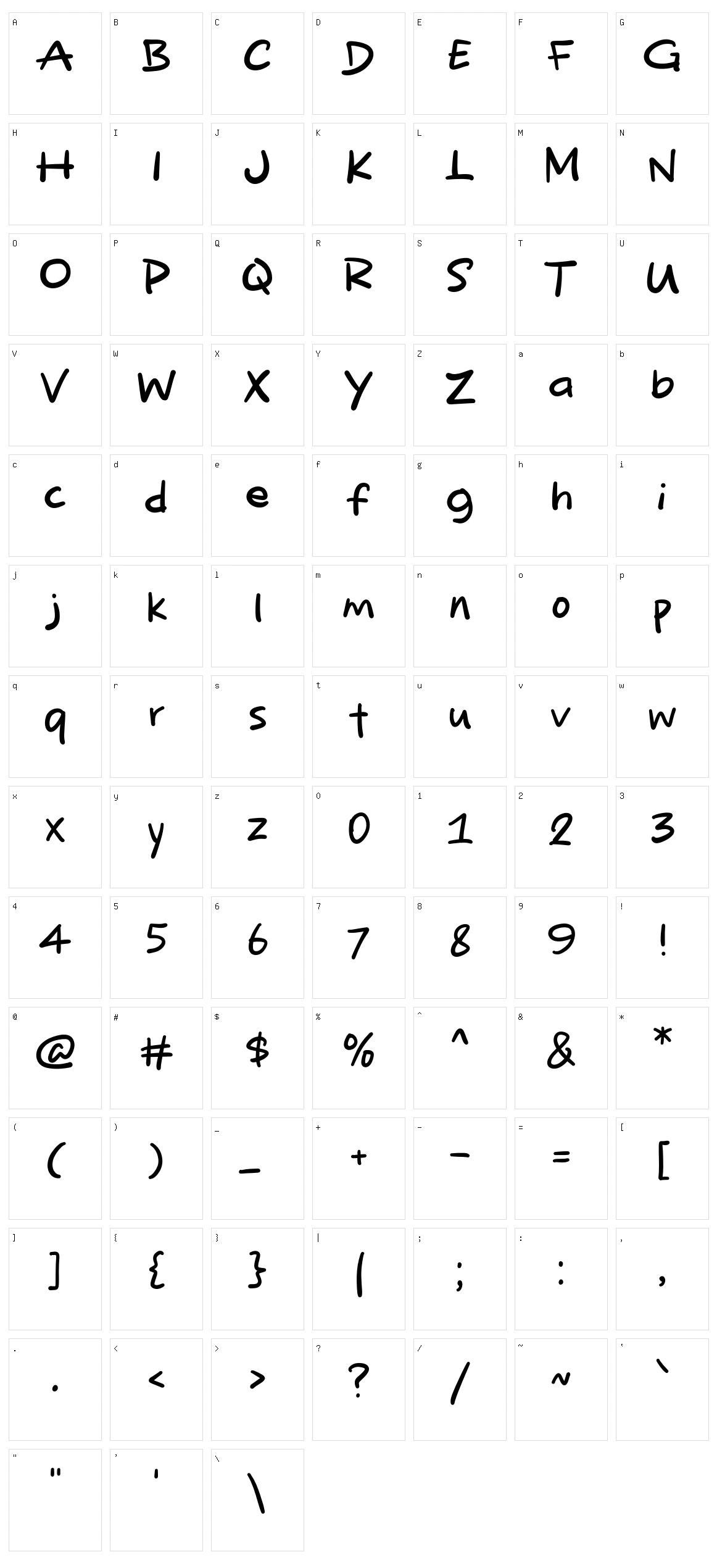
The free font December Show is carefully designed by Khurasan, showcasing a thoughtful balance of creativity and usability and falls under the Script font style. When you download the ZIP file, it contains only 400.1 KB of font files, making it lightweight and quick to download. Please review the license details below to understand permitted usage and distribution rights. If license information is not available, we recommend using this font for personal projects only or contacting the author directly for commercial usage permissions.